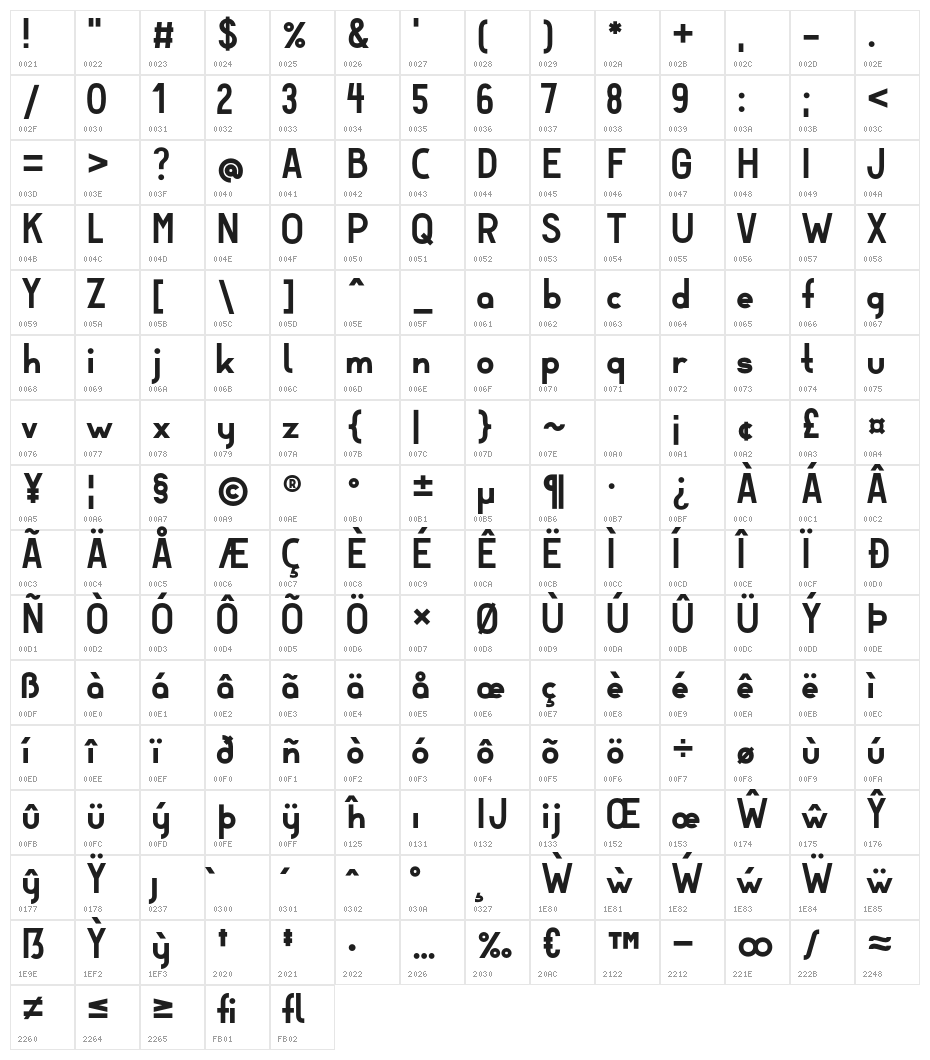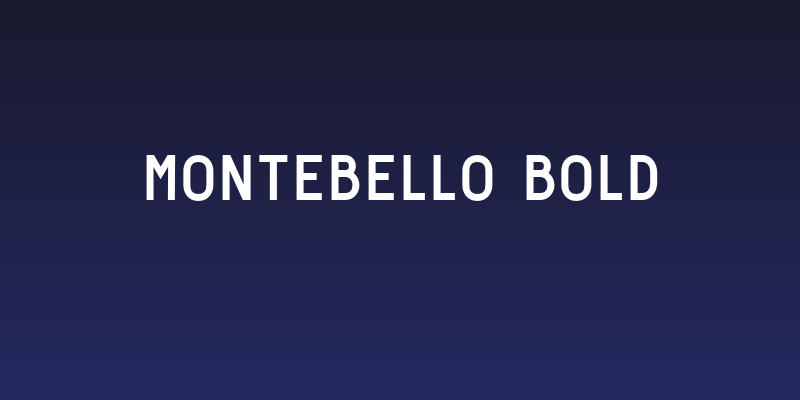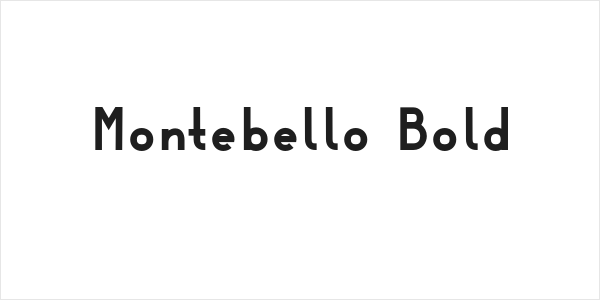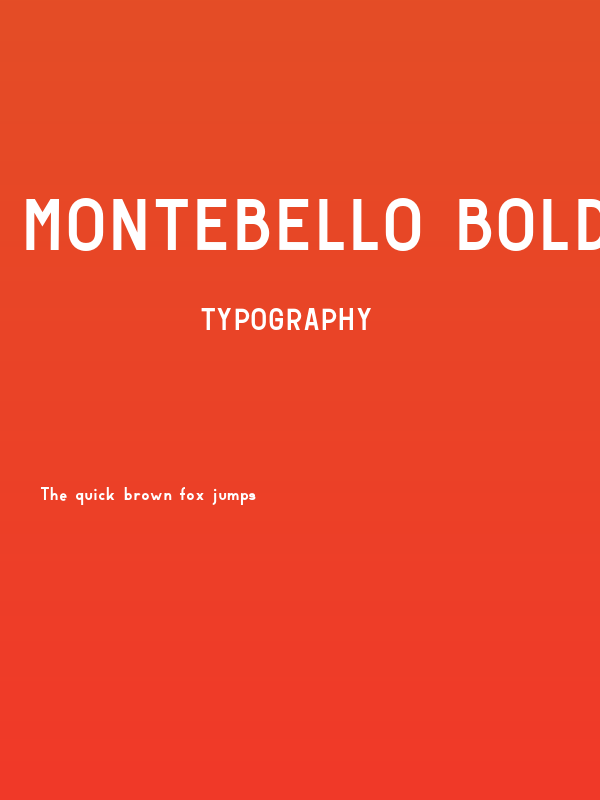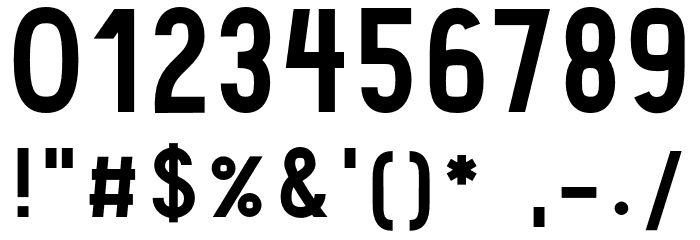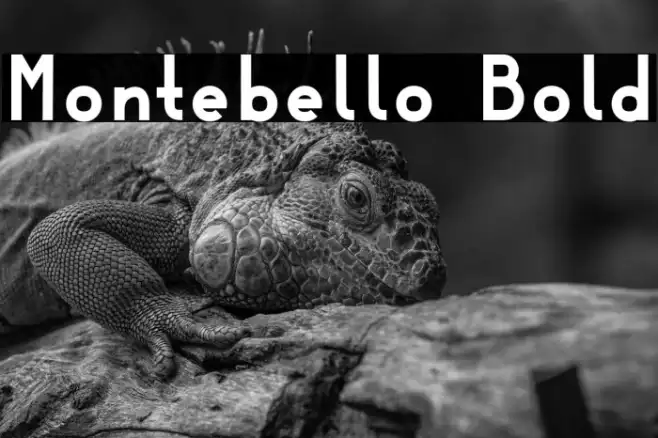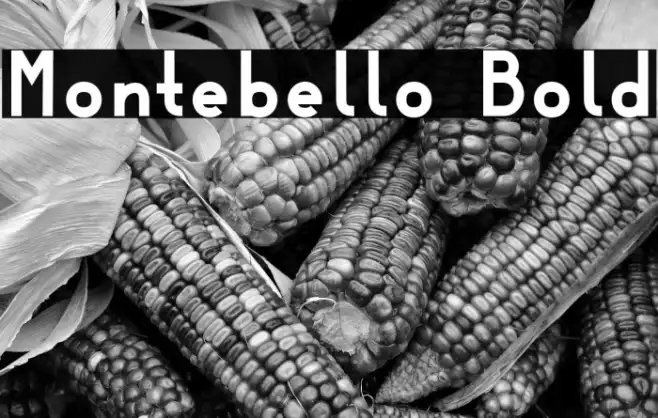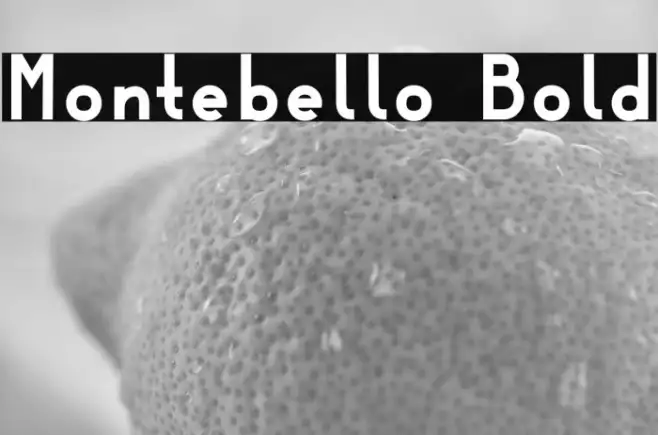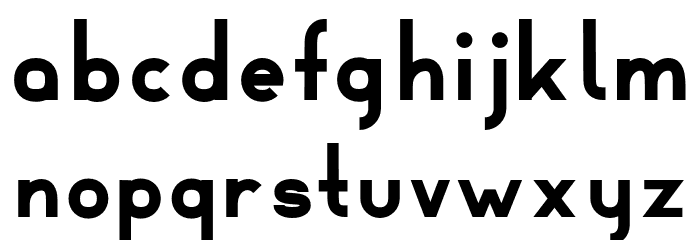
Montebello Bold Font
Montebello Bold Description
This font features a bold and assertive style with clean, geometric lines and a modern aesthetic. The uppercase letters are tall and slightly condensed, giving a strong presence, while the lowercase letters maintain a consistent height, ensuring readability. The numerals are uniform and align well with the overall design, making them ideal for both display and text purposes. Special characters are crafted with precision, maintaining the font's cohesive look. The overall appearance is sleek and professional, suitable for a variety of applications.
| Proposed Projects | Ideal for branding, headlines, posters, and digital media where a strong, modern presence is desired. |